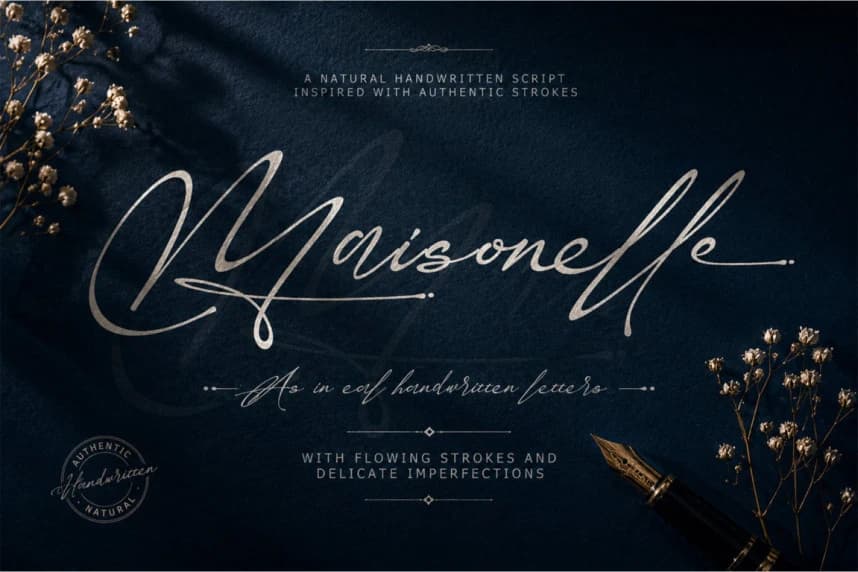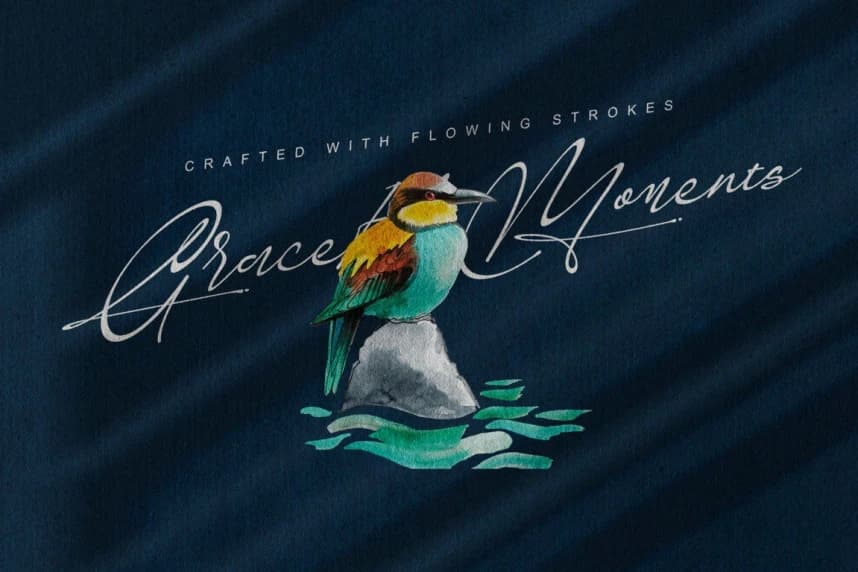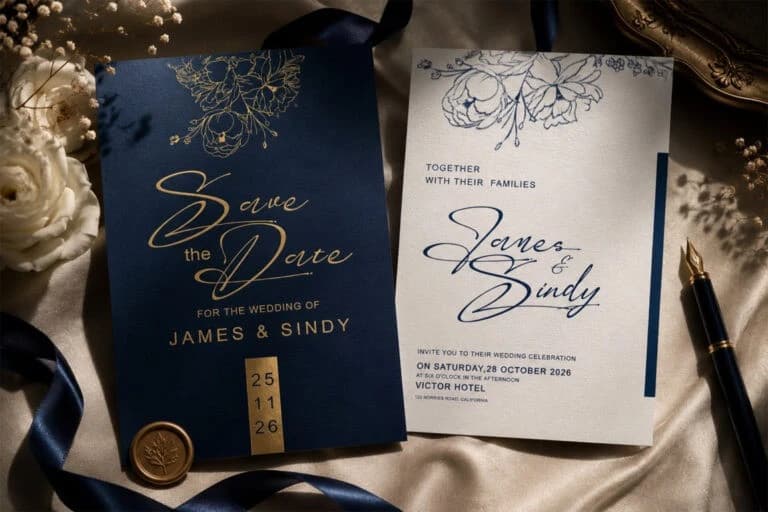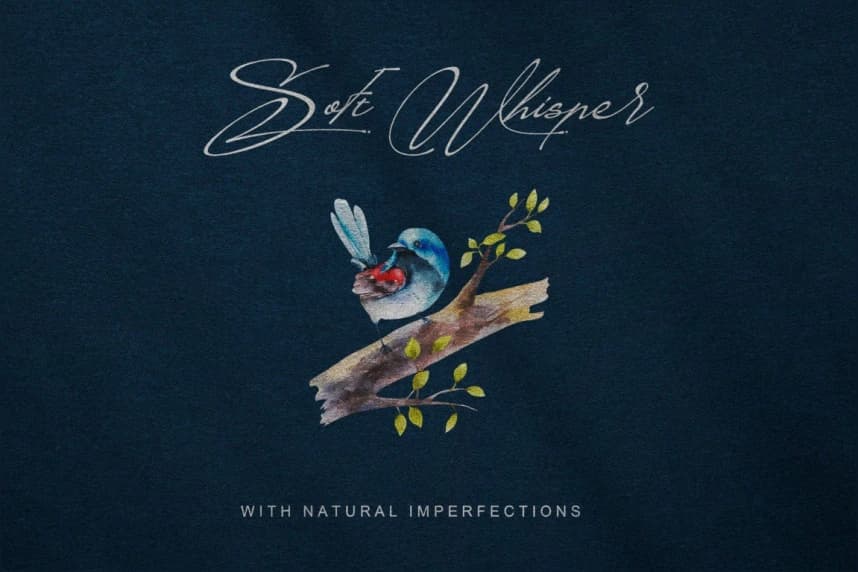
Maisonelle Font
Maisonelle Font is a graceful handwritten script font designed to capture the beauty of authentic signature writing with flowing strokes, delicate curves, and natural imperfections. Its elegant character brings a personal and sophisticated touch